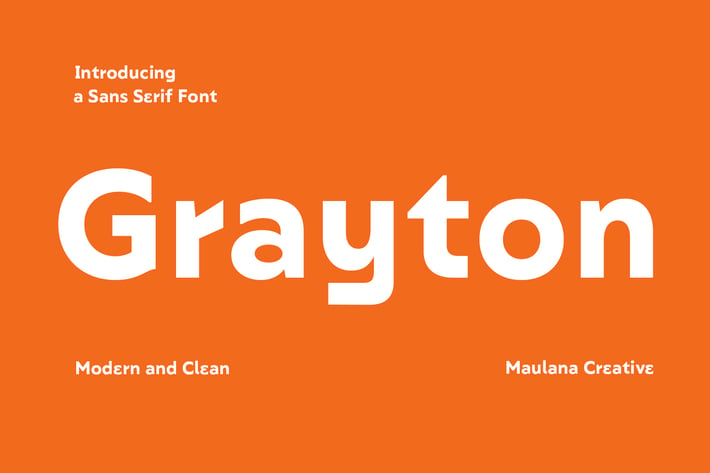
Grayton Sans Serif Font
Grayton is a modern sans serif Display font. Bold stroke, fun character with a bit of ligatures and alternates. To give you an extra creative work. Grayton font support multilingual more than 100+ language. This font is good for logo design, Social media, Movie Titles, Books Titles, a short text even a long text letter and good for your secondary text font with script or serif. Make a stunning work with Grayton font.